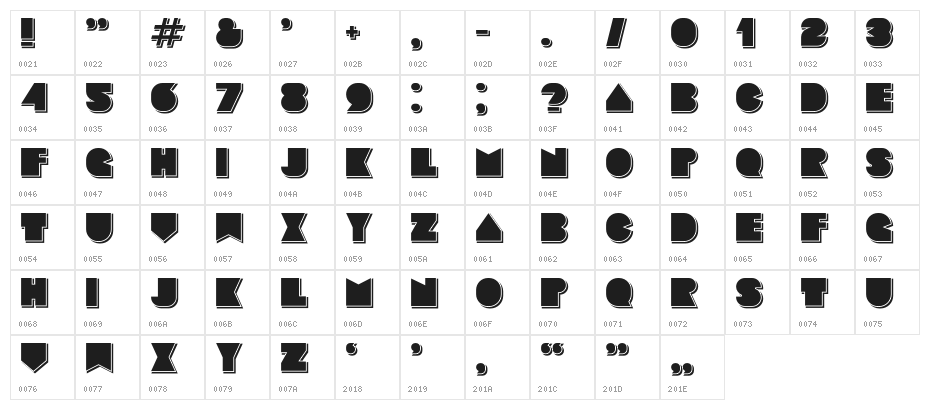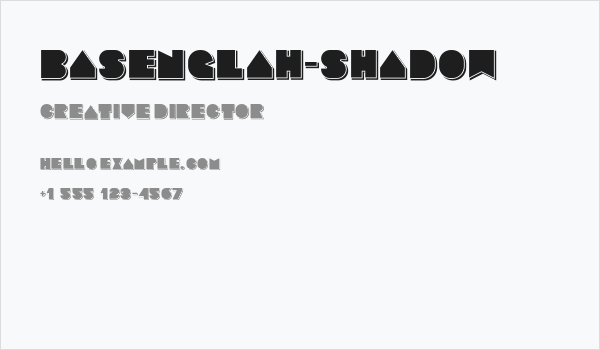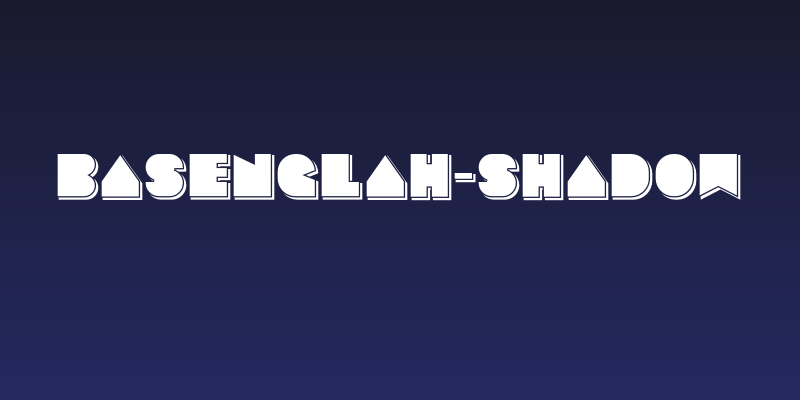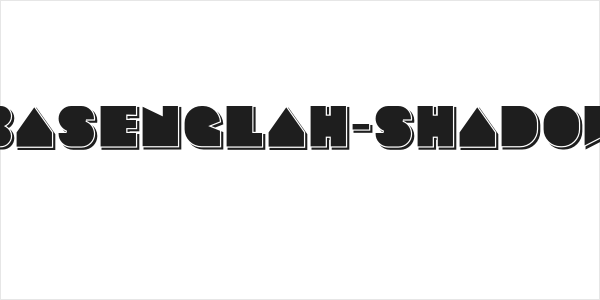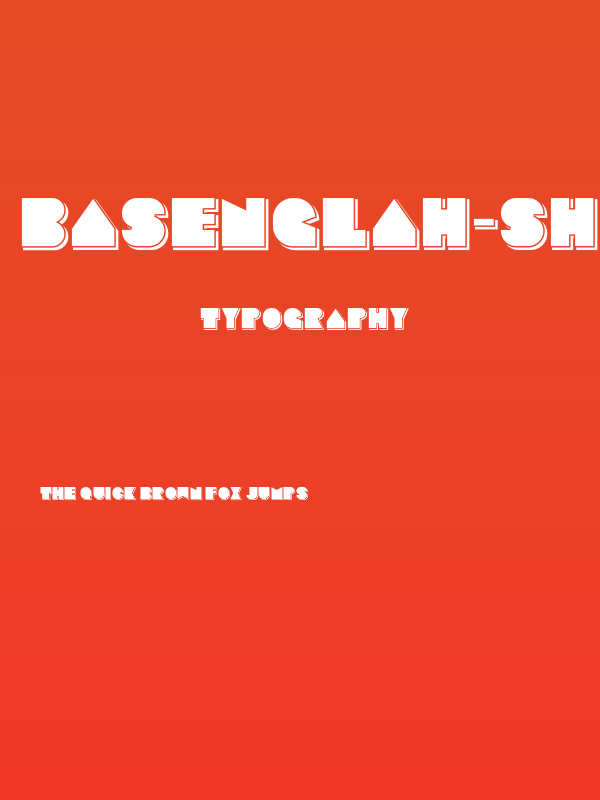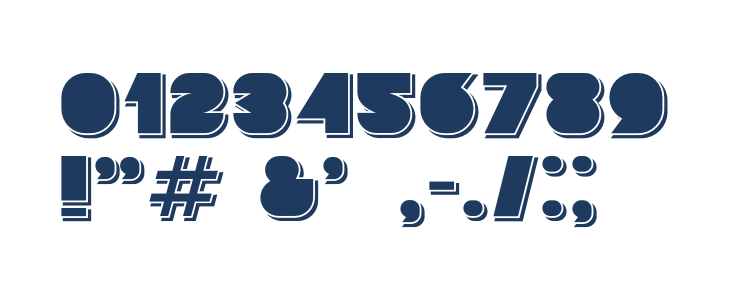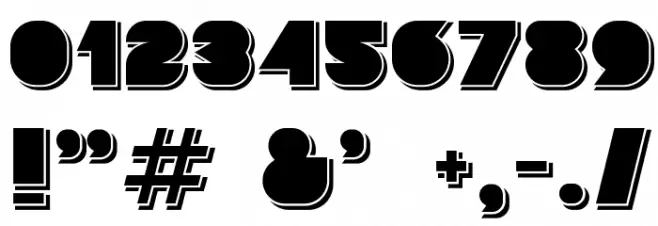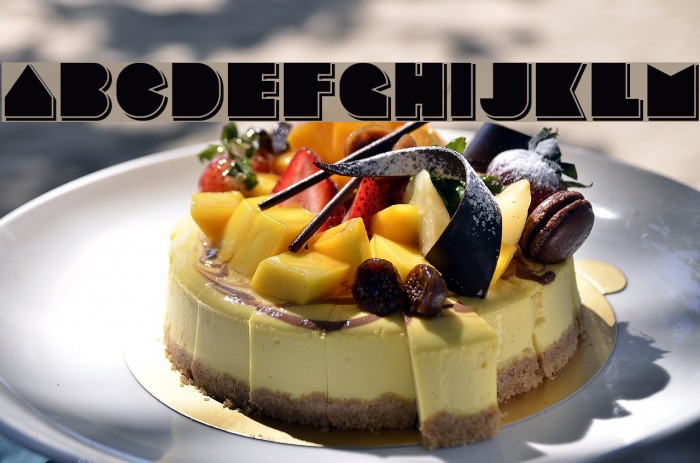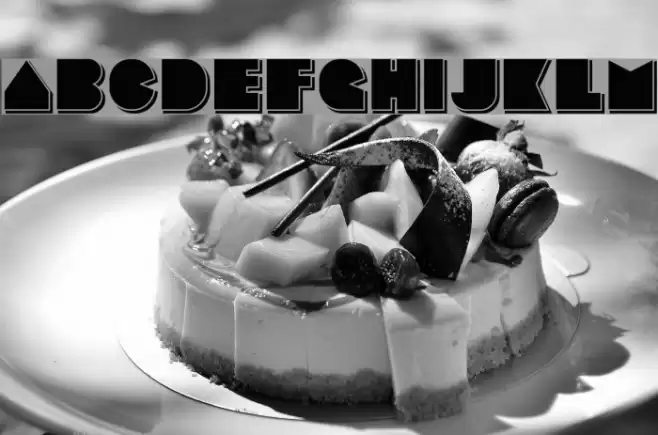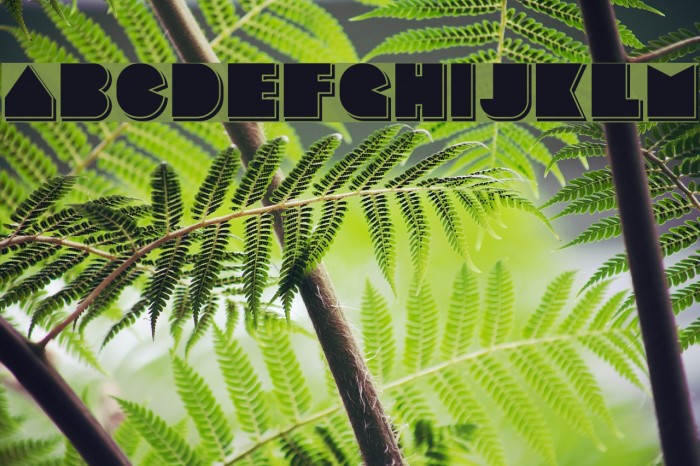
Basenglah-Shadow Font
Basenglah-Shadow Description
This font features a bold and striking design with a shadow effect that gives it a three-dimensional appearance. The characters are blocky and geometric, with sharp angles and clean lines that create a sense of strength and modernity. The uppercase and lowercase letters maintain a consistent style, with the shadow adding depth and visual interest. Numbers and special characters are designed to match the bold aesthetic, making them stand out prominently. This font is ideal for projects that require a strong visual impact, such as posters, headlines, and branding materials.
| Proposed Projects | Ideal for posters, headlines, branding, and any design requiring a strong visual impact. |